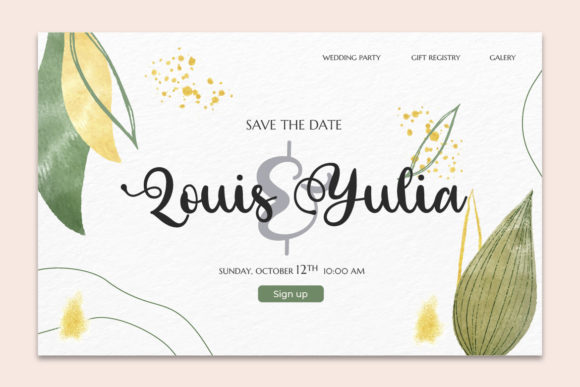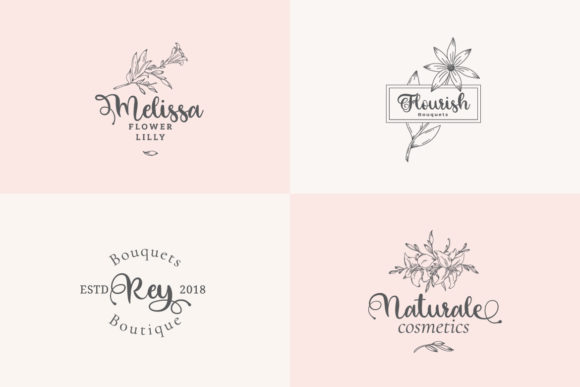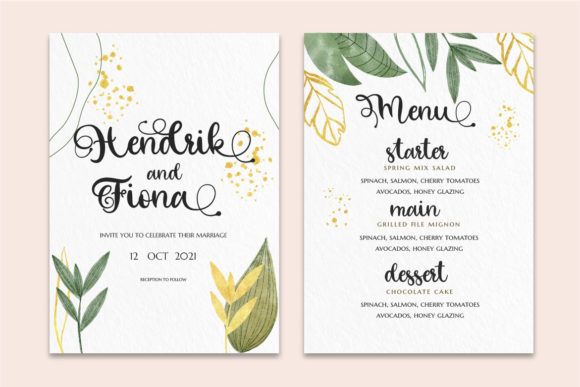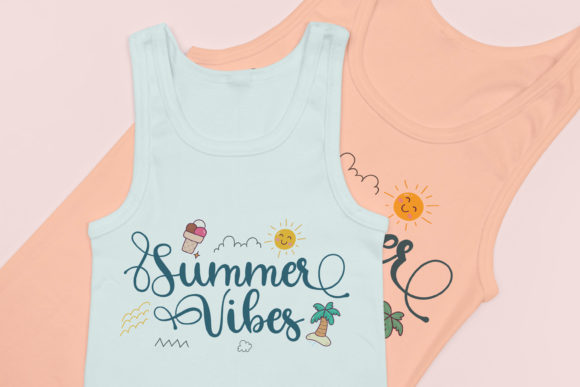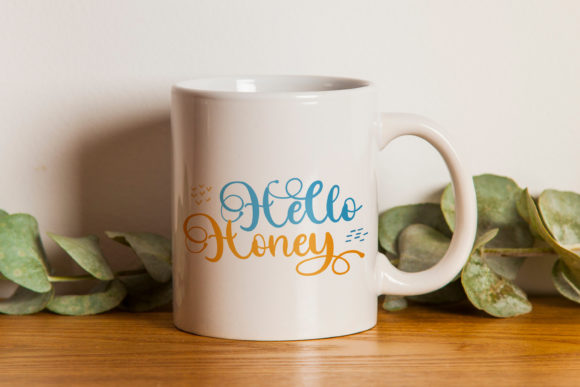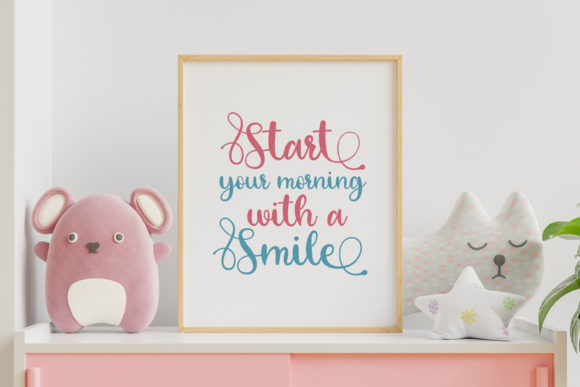
Introduction to Los Angeles Font
Imagine you’re brainstorming ideas for a creative project and you stumble upon the perfect font to elevate your design. It’s that moment when everything falls into place, and your vision starts to take shape. For designers, finding the right font can be a game-changer. And that’s exactly what the Los Angeles Font offers – a beautiful and refreshing look that’s sure to leave a lasting impression.
As a design resource, the Los Angeles Font is a high-quality addition to any creative project. Its PUA encoded feature allows for easy access to all the glyphs and swashes, giving you the freedom to experiment and express yourself without any limitations. Whether you’re working on a free download or a paid project, this font is sure to deliver a professional and polished look.
Key Features of Los Angeles Font
- High-quality font design, ideal for creative projects and professional designs
- Features a unique, modern aesthetic with a transparent background, perfect for adding a touch of sophistication to your design
Honest Review: Los Angeles Font
Here’s what I love about the Los Angeles Font: ✨ Its high-quality design is perfect for any project that requires a sleek, modern look. The font is incredibly versatile and can be used for a wide range of creative projects, from logos to brochures. The transparent background is also a huge plus, making it easy to layer over images or use as a background element.
Here are some of the key features that stood out to me:
- High-quality design perfect for modern projects
- Perfect for logos, brochures, and other creative projects
Of course, no font is perfect, and the Los Angeles Font has some limitations. ⚠️ The font may not be suitable for projects that require a more classic or vintage look, as it has a distinctly modern aesthetic.
Overall, I’m thoroughly impressed with the Los Angeles Font. It’s a valuable addition to any designer’s toolkit, and I highly recommend it for any creative project that requires a high-quality, modern font.
Some tips for getting the most out of the Los Angeles Font include using it for headings and titles, creating a consistent design aesthetic, and experimenting with different font sizes and styles. Common use cases include creating social media graphics, designing flyers and brochures, and developing branding materials.